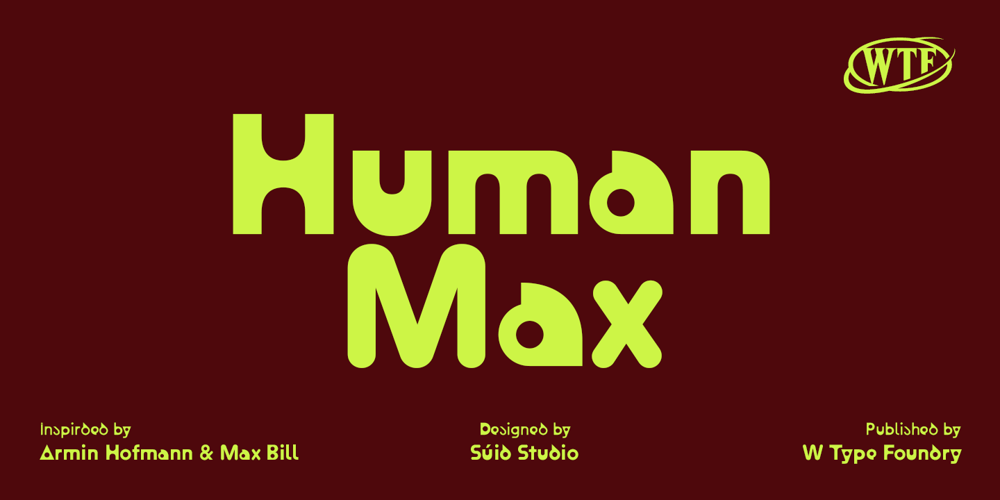
Human Max
Human Max font
Human Max Font Family was designed by David Súid and published by W Type Foundry. Human Max contains 7 styles and family package options. Human Max is a revival of the typeface known as ‘study for a typeface for machines and humans’, originally designed by Max Bill. This font complements Hofmann Grotesk, based on its proportions and sharing its origin, but adapted with a contemporary geometric finish. Bill’s original work is transformed into a typographic system that prioritizes readability by distinguishing key characters, aiding readability in complex and extensive studies.Human Max is presented as a Display option that includes new designs and interpretations of the original system, offering functionality with stylistic alternates, ligatures, punctuation marks, symbols, numbers, accents, and more.